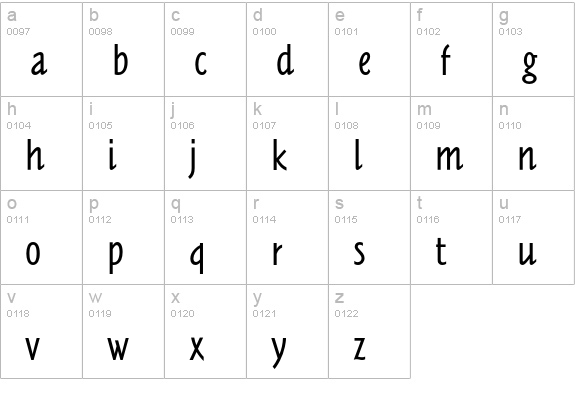
Tannhauser Std Font Details
Tannhauser Std is a visually striking font that effortlessly captures attention with its elegant and bold design. This versatile typeface combines classic charm with a modern twist, making it the perfect choice for a wide range of creative projects. With its clean lines and carefully crafted letterforms, Tannhauser Std exudes a sense of sophistication and professionalism. Whether used in headlines, logos, or body text, this font adds a touch of refinement and distinction to any design. One of the most appealing aspects of Tannhauser Std is that it is freely available for download at FontsMarket.com. This means that designers and typographers can access this exceptional font without any cost, allowing them to explore its limitless possibilities in their work. With its extensive character set and various weights, Tannhauser Std offers endless options for customization and experimentation. Its versatility makes it ideal for both print and digital projects, ensuring that it can adapt to any creative vision. The legibility of Tannhauser Std is top-notch, making it a reliable choice for both large and small text sizes. Its well-balanced proportions and thoughtful spacing contribute to its overall readability, ensuring that every word is effortlessly absorbed by the reader. In conclusion, Tannhauser Std is a remarkable font that combines timeless elegance with modern flair. Its availability as a free download at FontsMarket.com makes it a valuable asset for any designer or typographer seeking to elevate their creations. With its versatility, legibility, and striking design, Tannhauser Std is sure to leave a lasting impression on any project it graces.